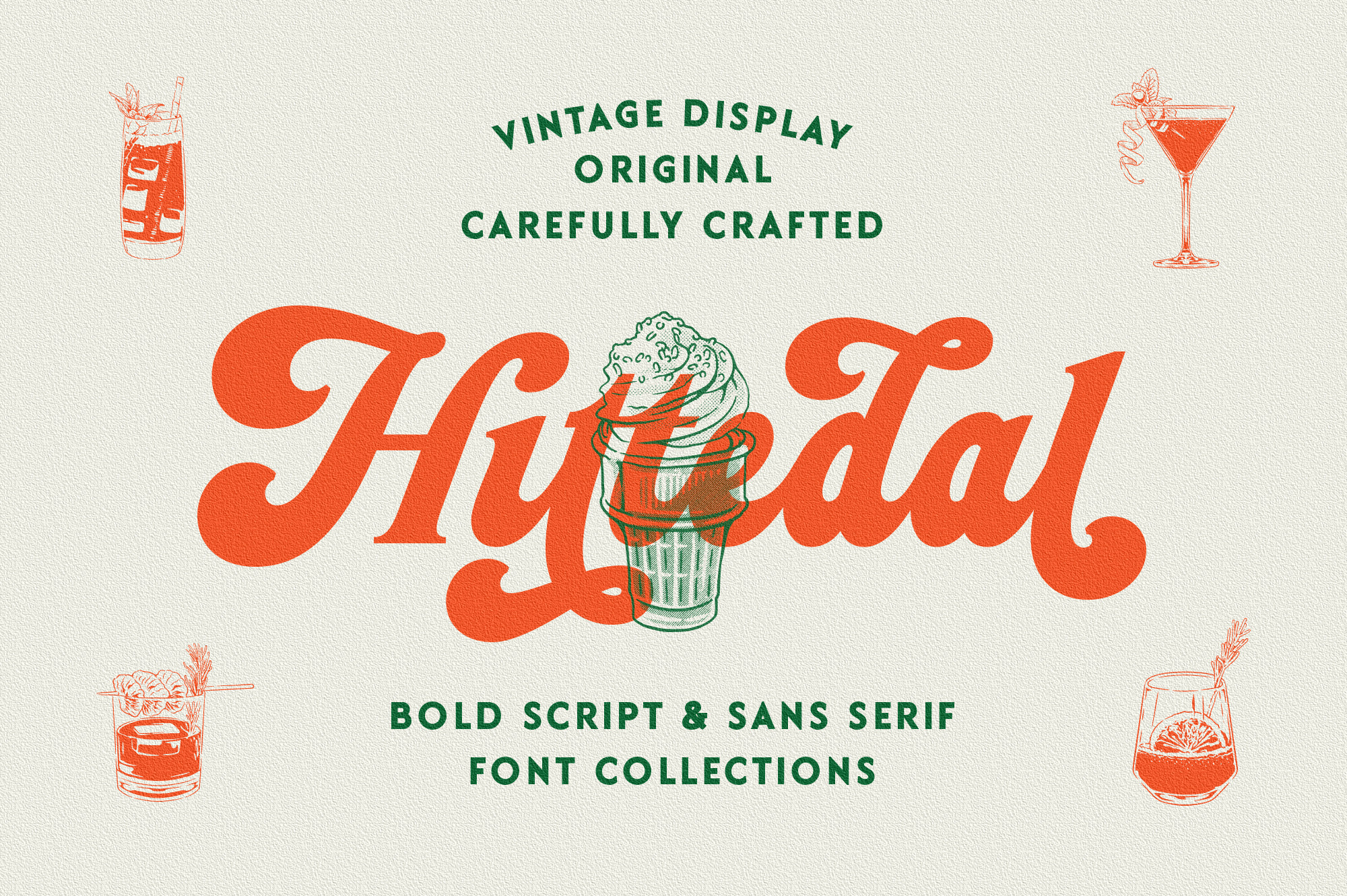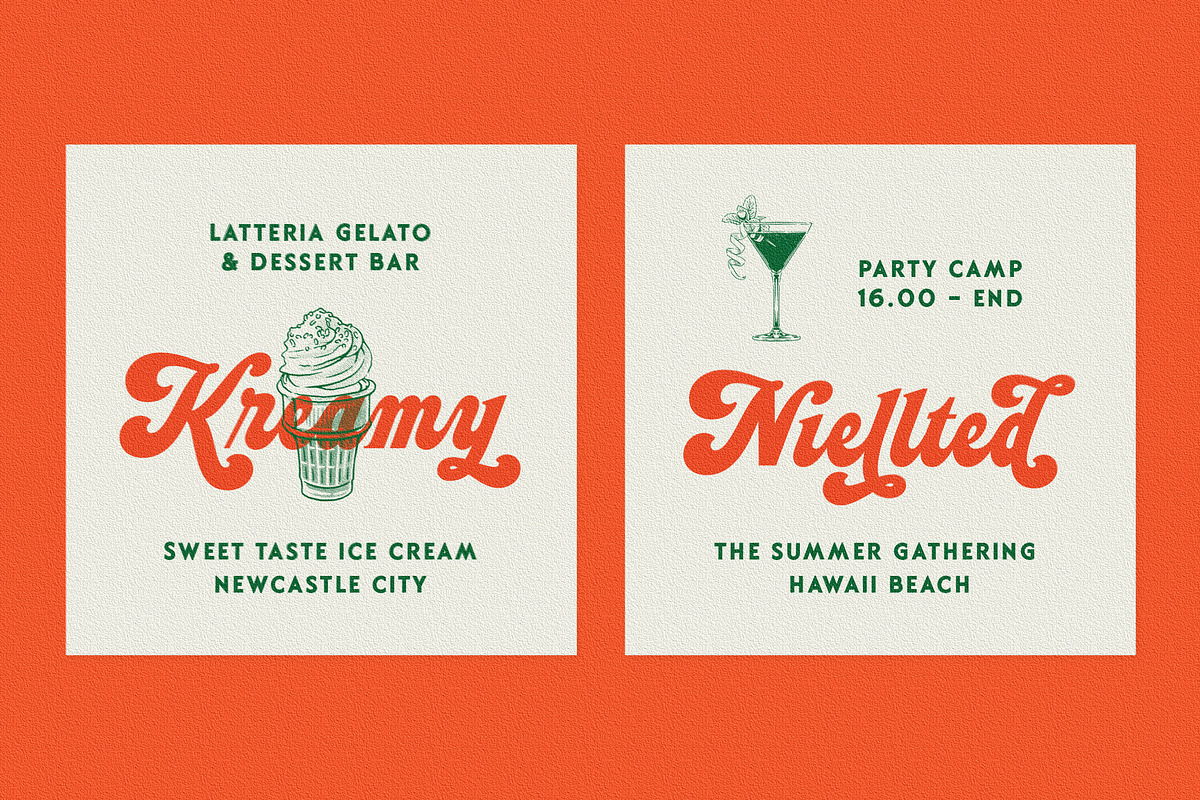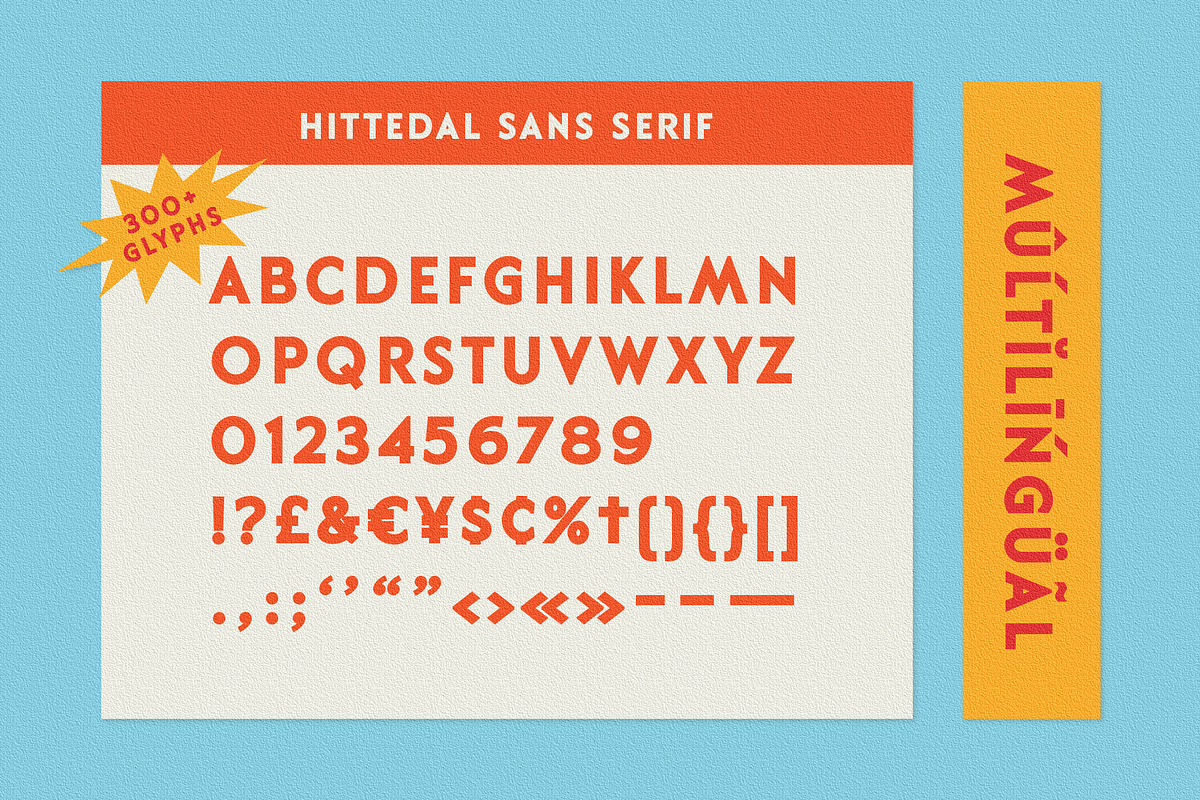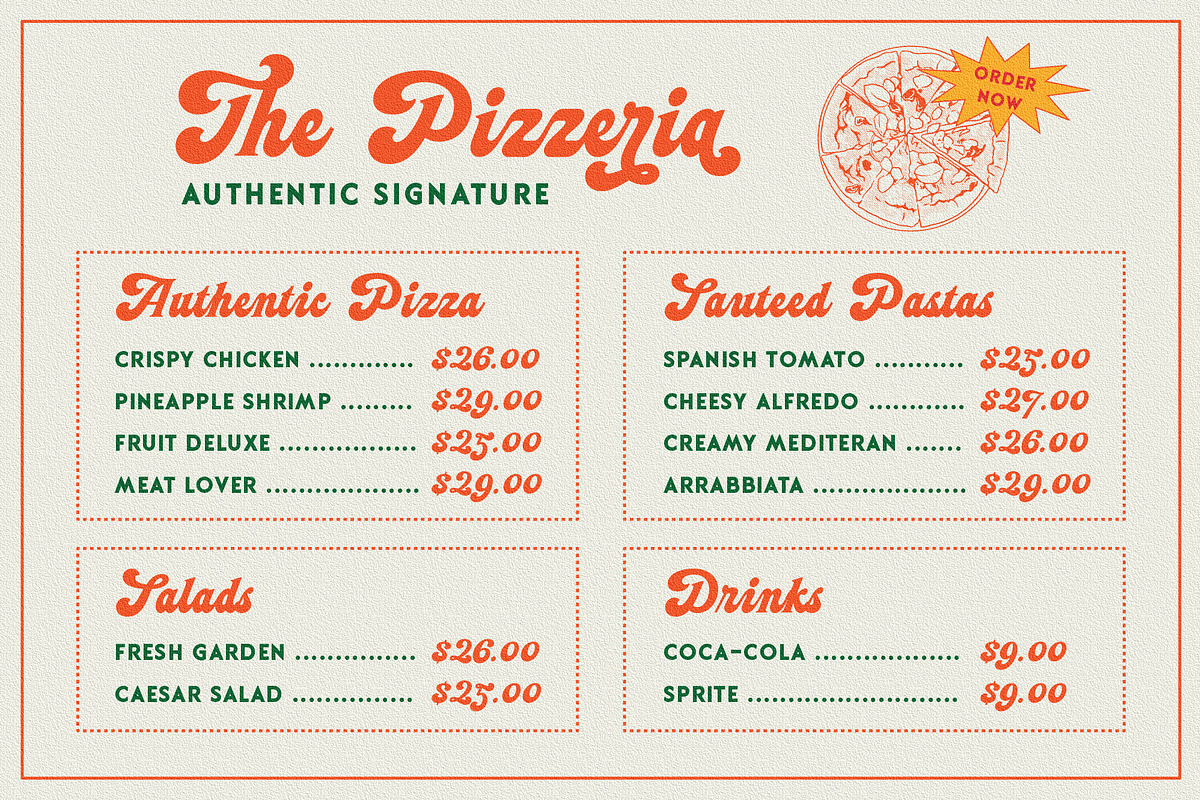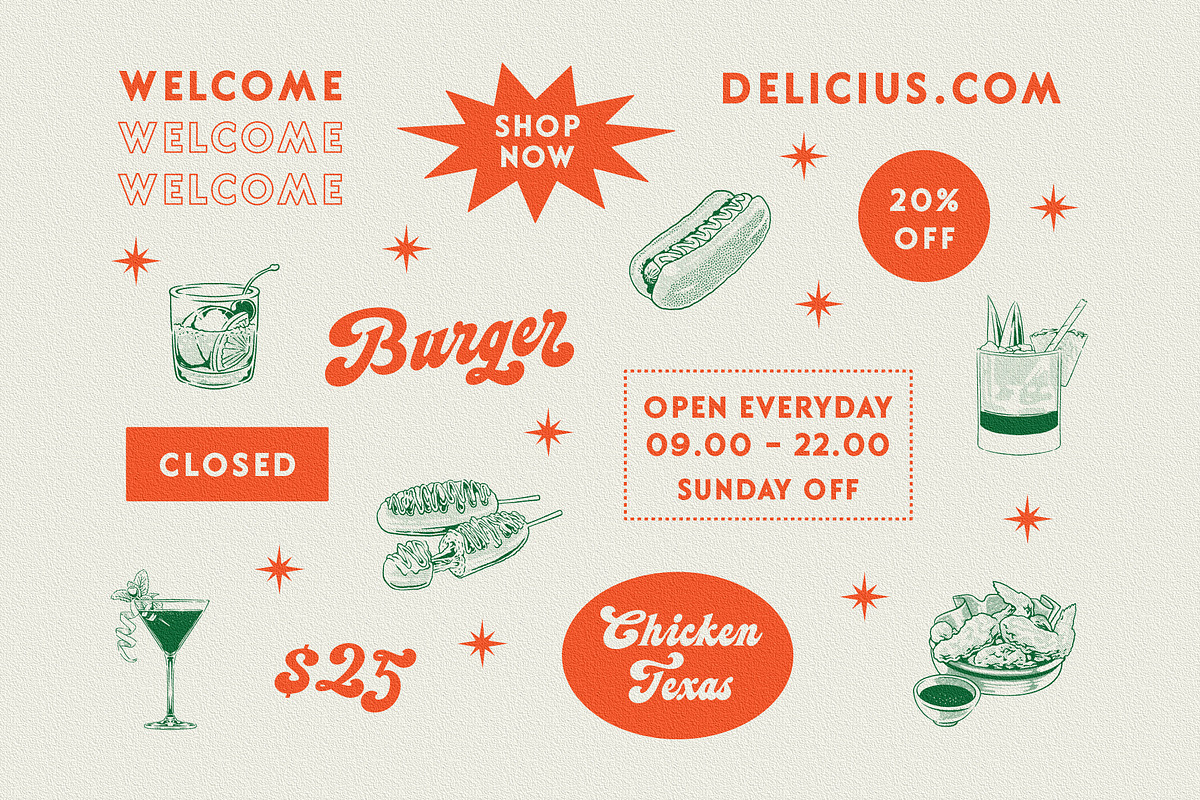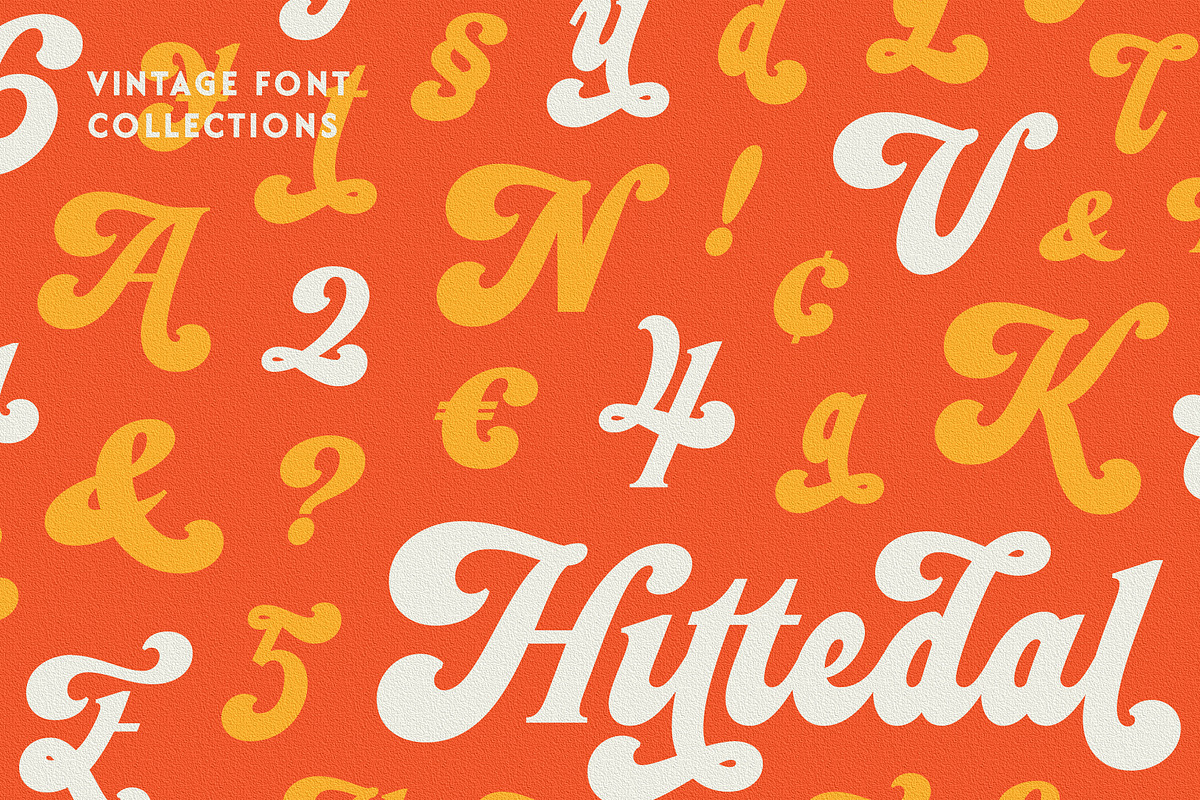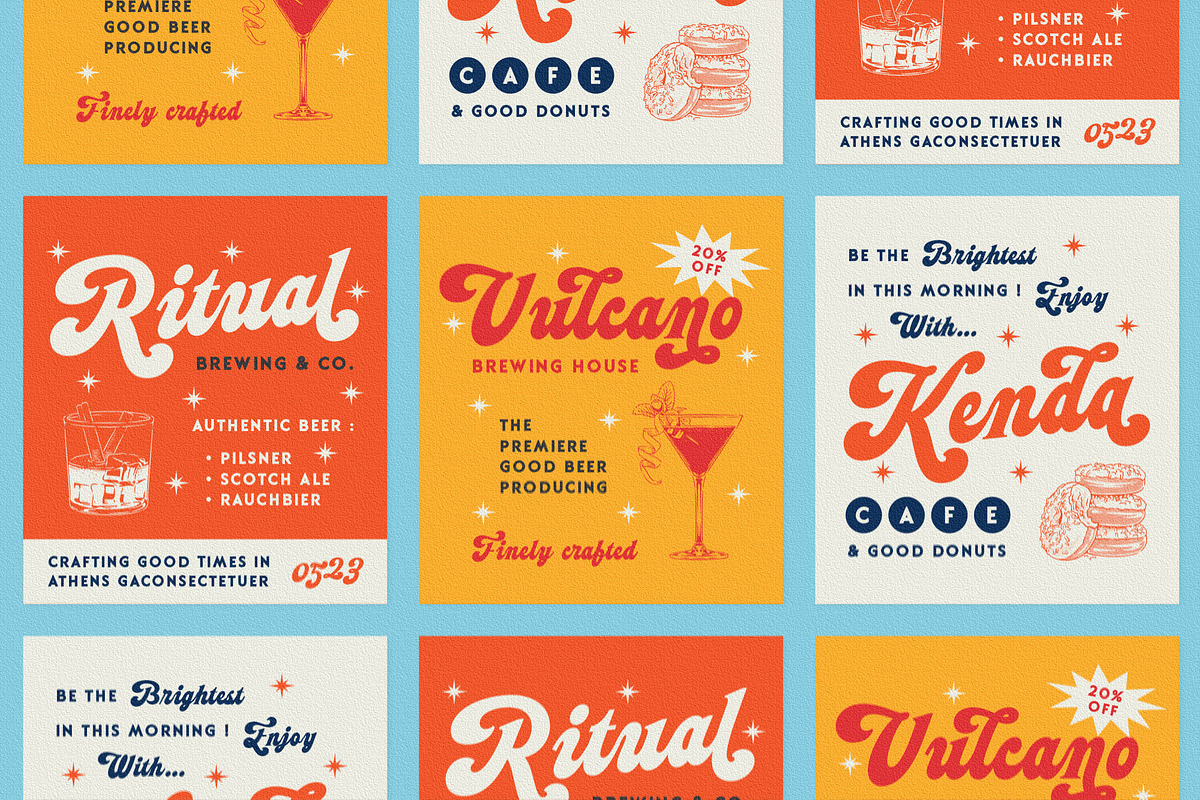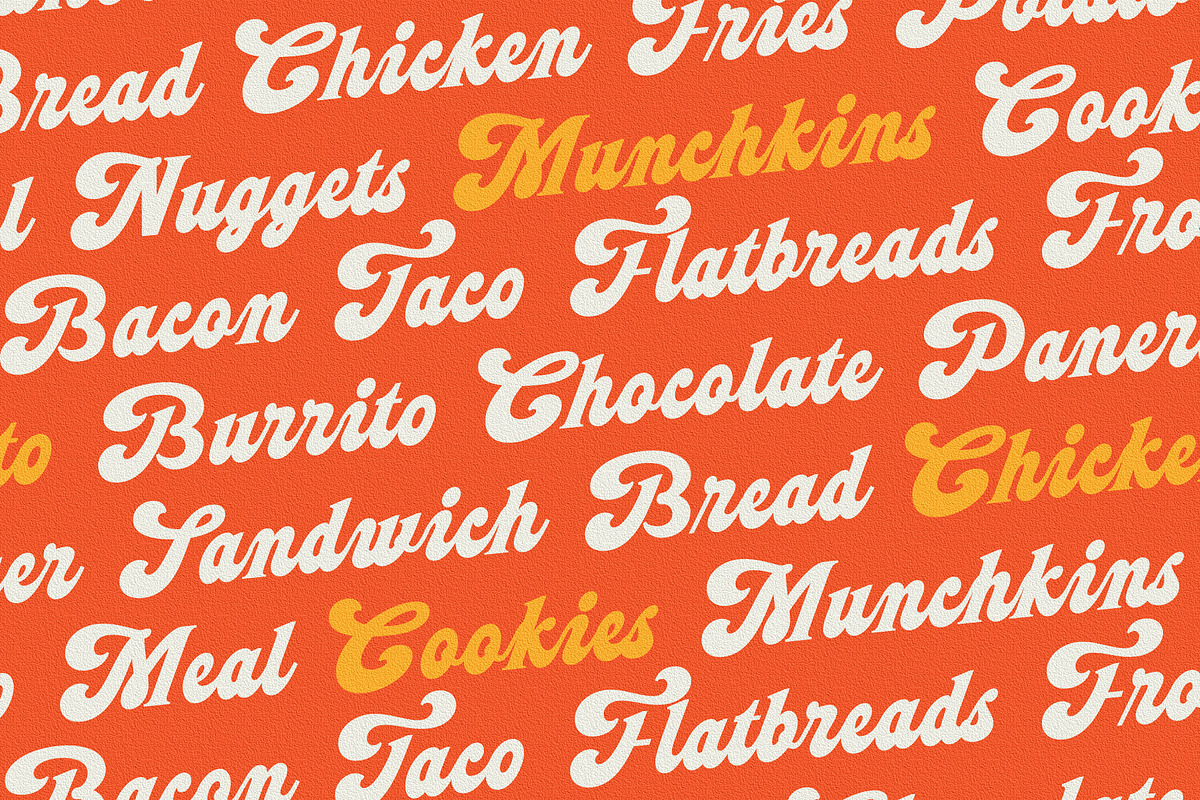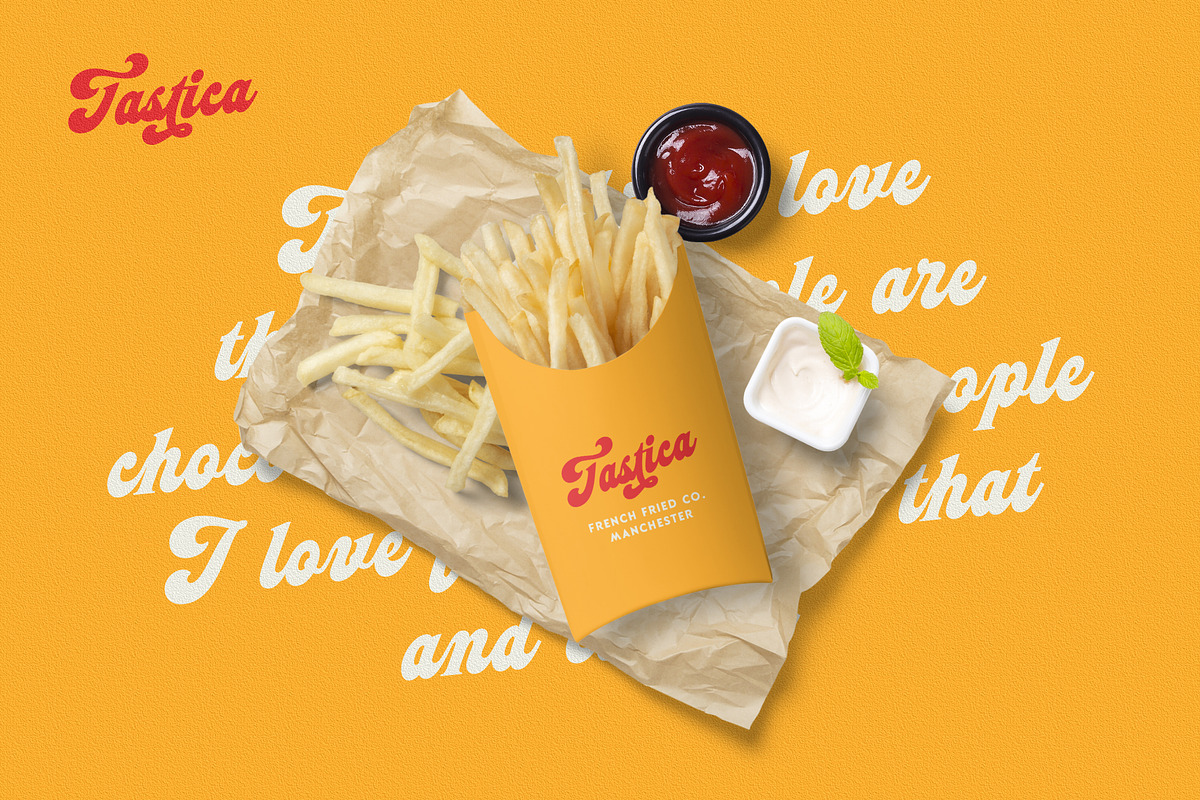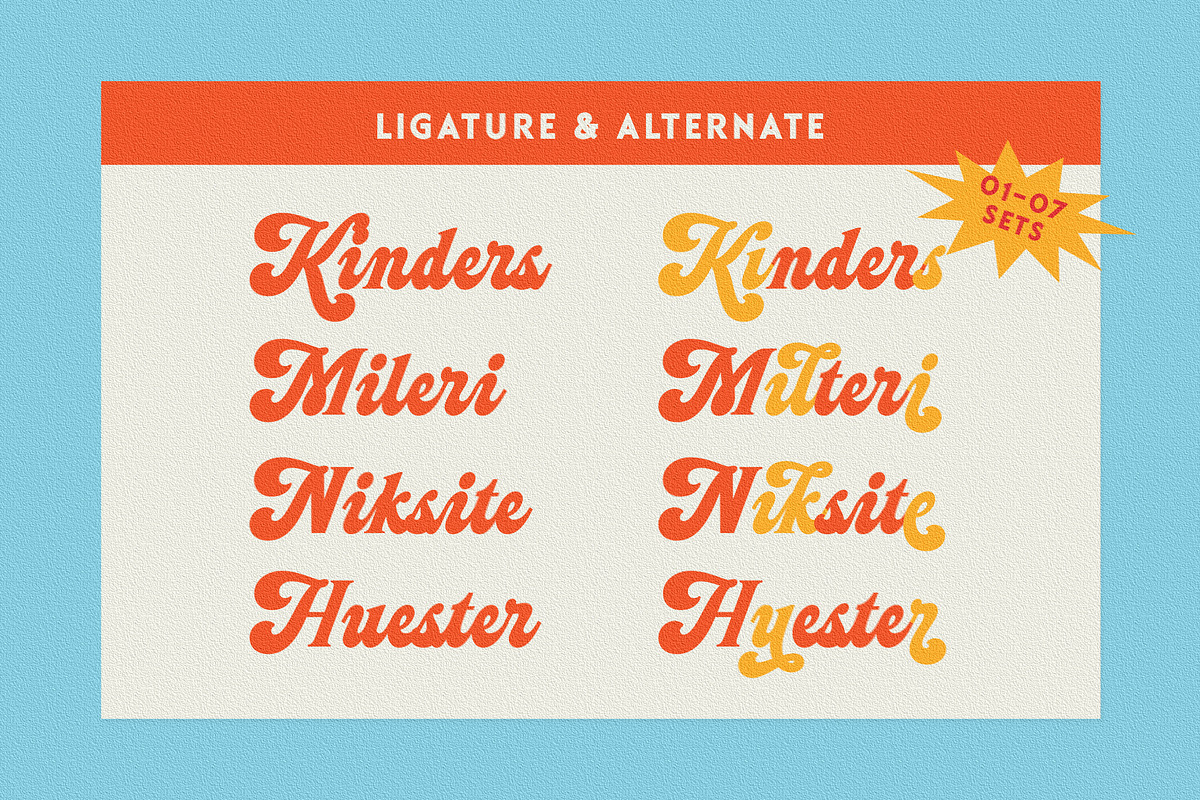
Hittedal - Display Font
The font collection is called "Hittedal", it is a display font for logotype. These collections contain bold script and sans serif font. This script font includes some alternates and ligatures. The Hittedal matches apply in some designs such as the logo, poster, label, badge, packaging, t-shirt, branding, quotes and more custom design.
Hittedal includes :
- 2 style typefaces (script and sans serif)
- Uppercase, lowercase, numeral, symbol, punctuation, ligature and alternate (ss01-ss07) in script font
- All-caps, numeral, symbol and punctuation in sans serif font